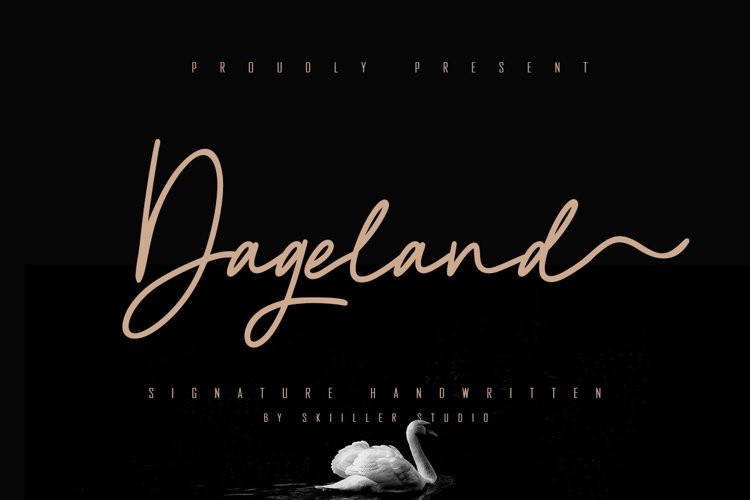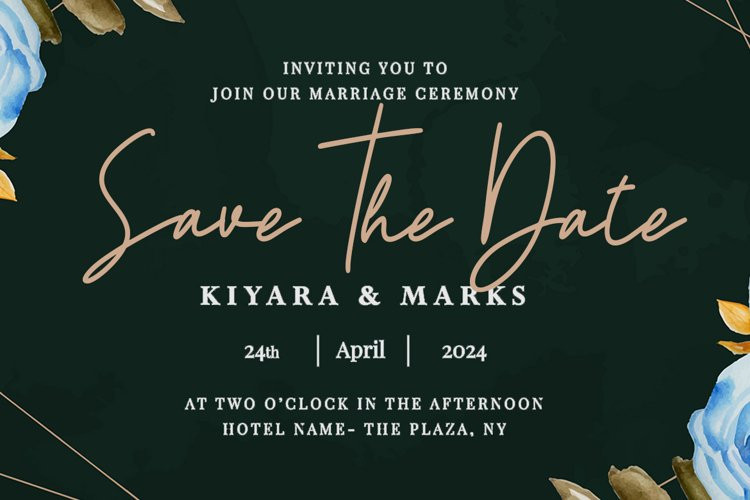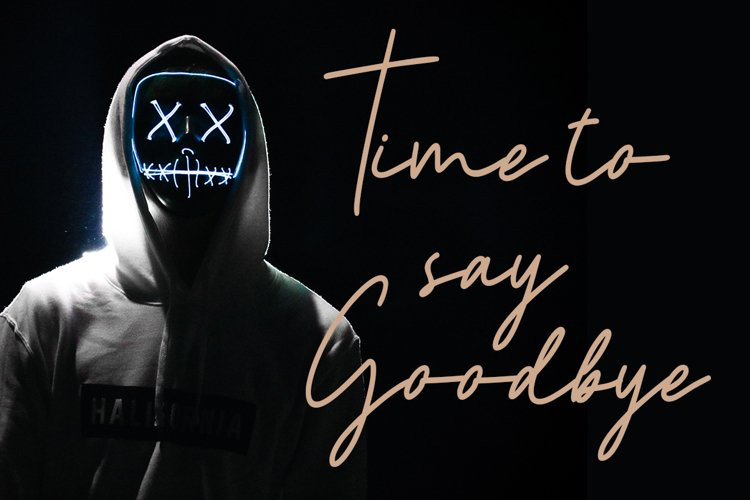
Dageland Font
Dageland Signature Handwritten script with a natural flow and beautiful style. Dageland is perfect for invitation design projects, prewedding, branding, logos, wedding designs, social media posts, advertisements, product packaging, product design, labels, photography, watermarks, invitations, stationery, and any project that requires handwriting tastes .